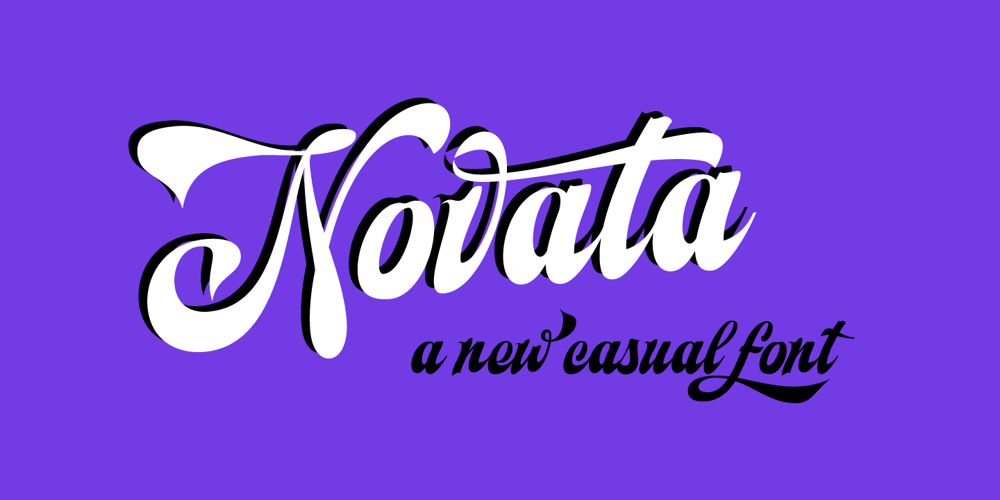
Novata Font Family was designed by Carine de Wandeleer and published by Eurotypo. Novata contains 1 styles and family package options. Novata is a new script font, casual, organic and with strong character. Novata includes 529 glyphs, with stylistic and contextual sets, swashes, many ligatures to combine and make your texts original and authentic.